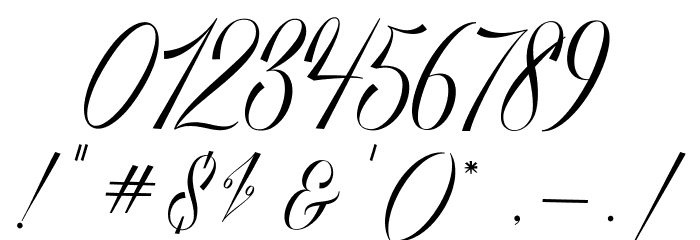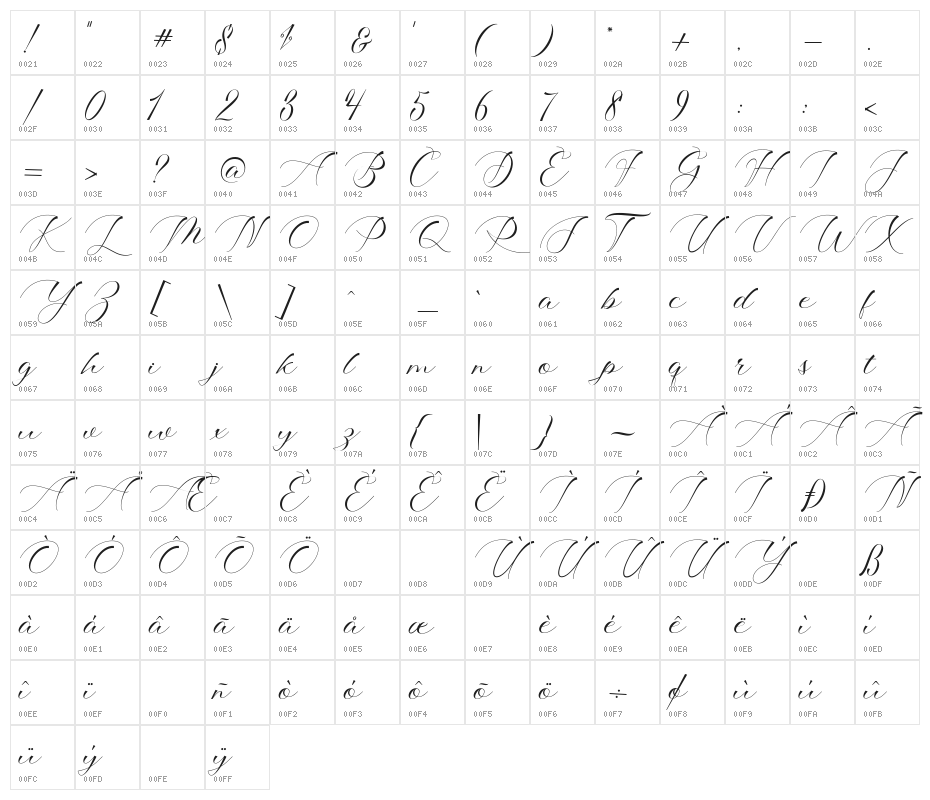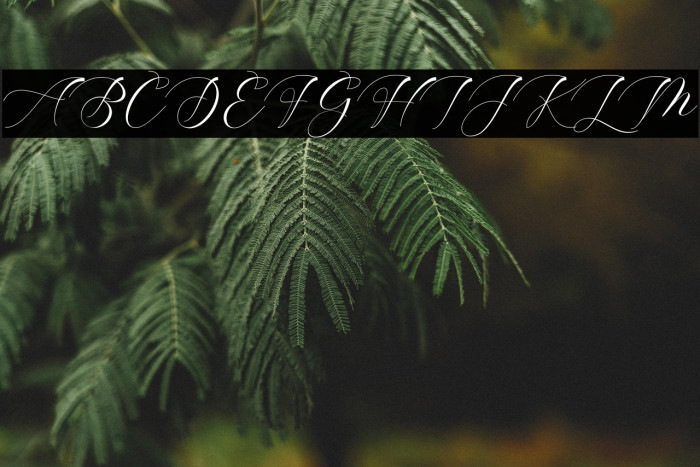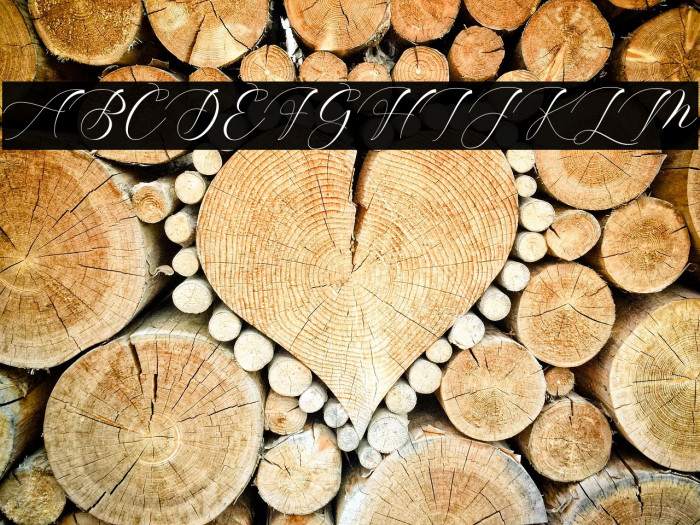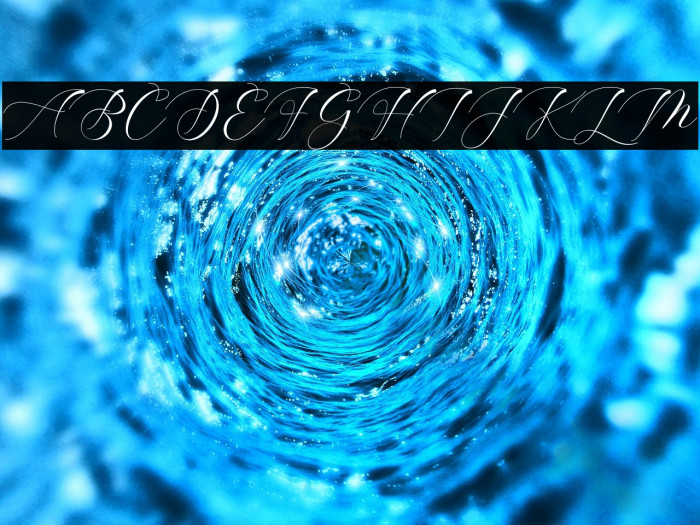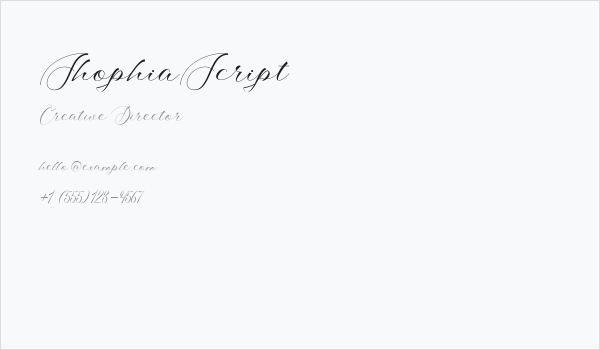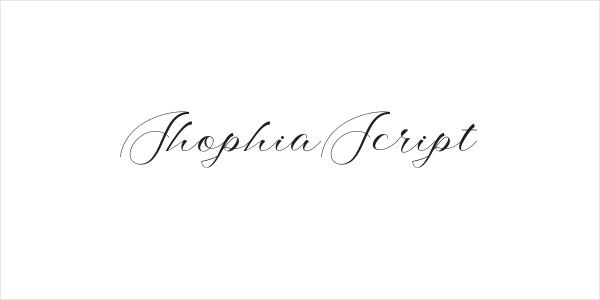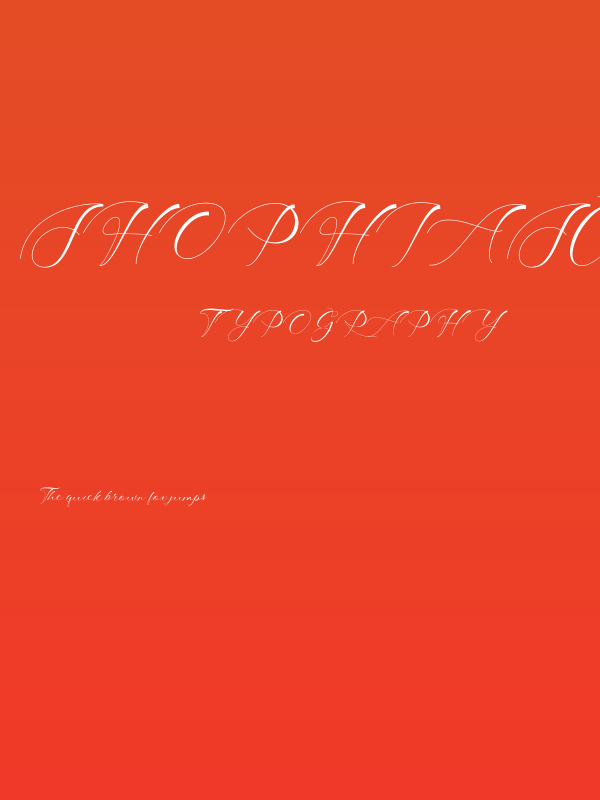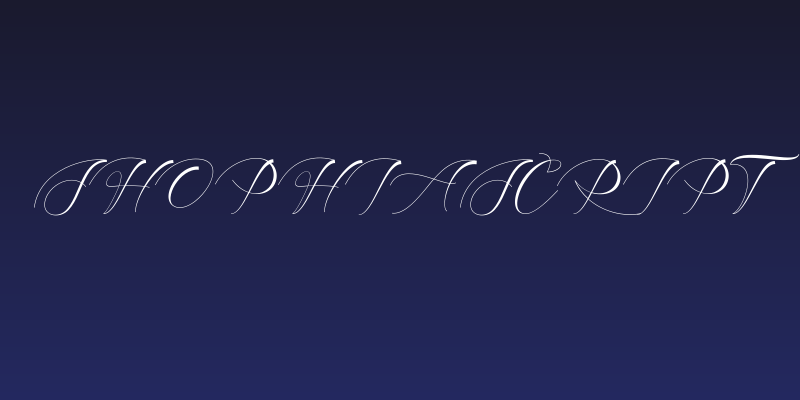
ShophiaScript Font
ShophiaScript Description
This elegant script font features flowing, interconnected characters with a classic and sophisticated appearance. The uppercase letters are ornate and sweeping, while the lowercase letters maintain a graceful continuity. The numerals are stylish and complement the overall aesthetic, adding a touch of refinement. Special characters are designed with flair, enhancing the font's decorative appeal. The font's thin strokes and delicate curves make it ideal for projects that require a touch of elegance and sophistication.
| Proposed Projects | Ideal for wedding invitations, elegant branding, luxury packaging, and formal event materials. |